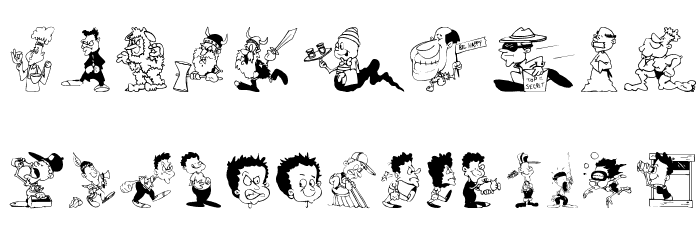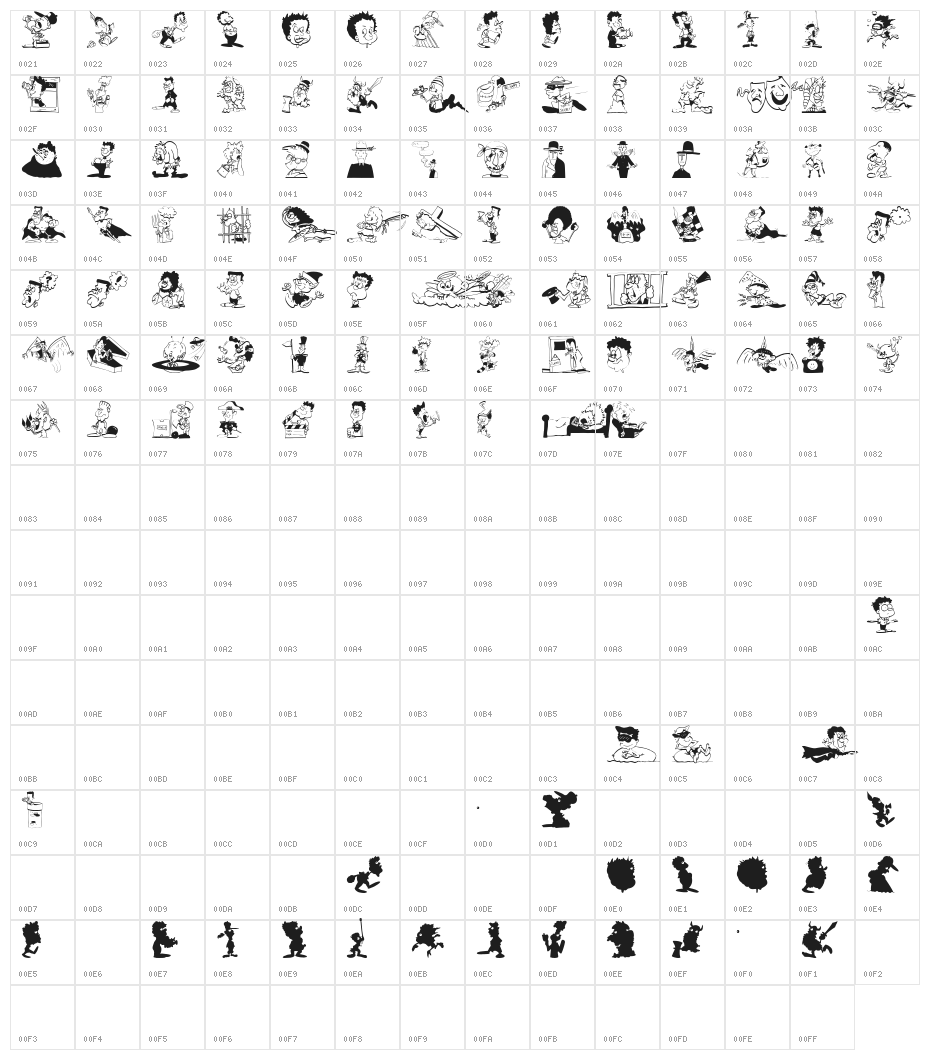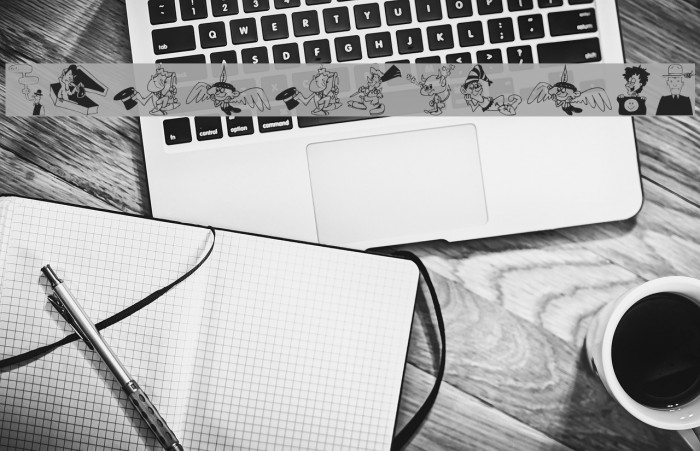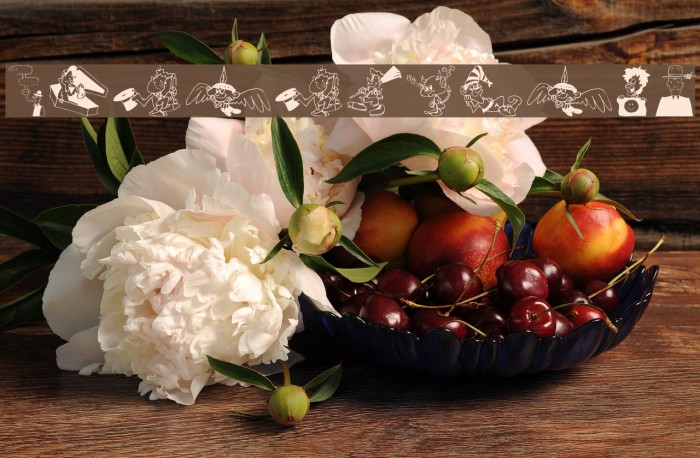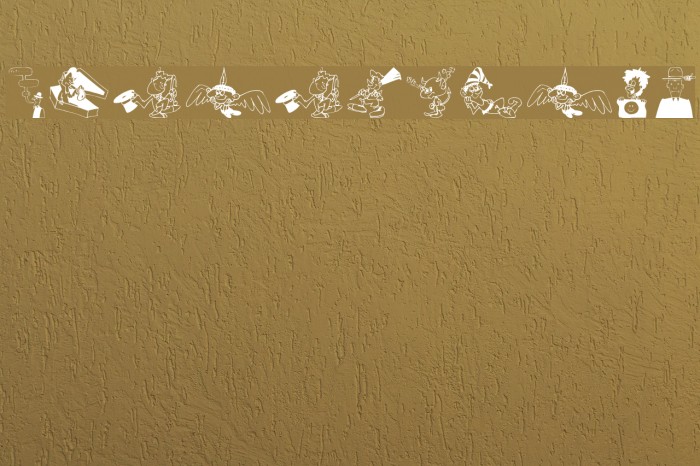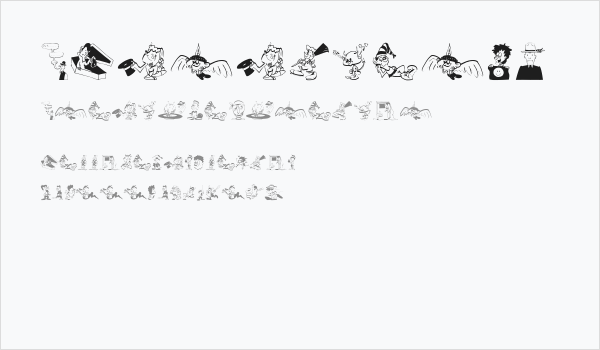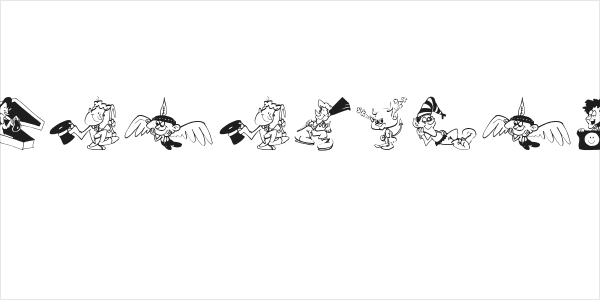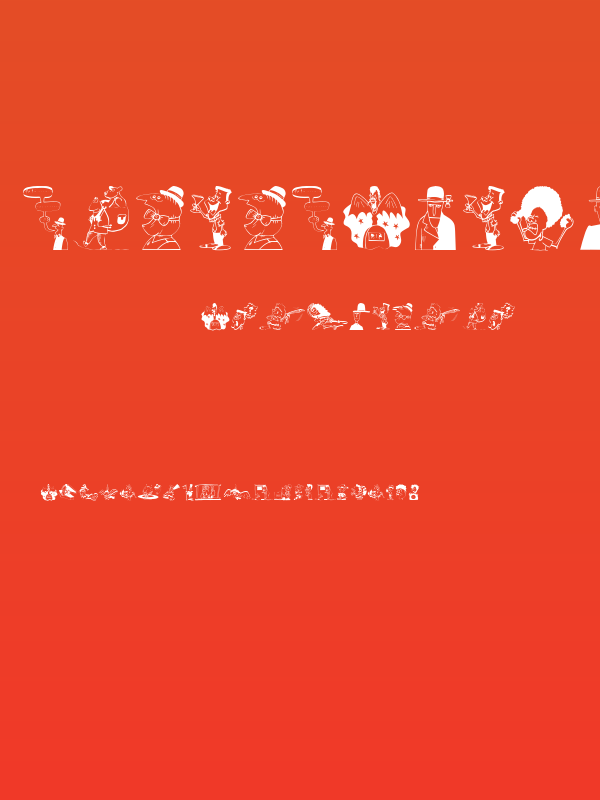
CharactersB Font
CharactersB Description
A highly decorative and playful font where each character is represented by a unique cartoon illustration, featuring exaggerated expressions and whimsical scenarios. The style is hand-drawn, with varying line thickness and a comic strip aesthetic.
| Overall Style | Decorative, Playful, Comic |
| Use Case | Logos, Posters, Headlines, ChildrenΓ’β¬β’s materials |
| Proposed Projects | ChildrenΓ’β¬β’s books, comic strips, playful posters, party invitations, educational materials, novelty branding. |